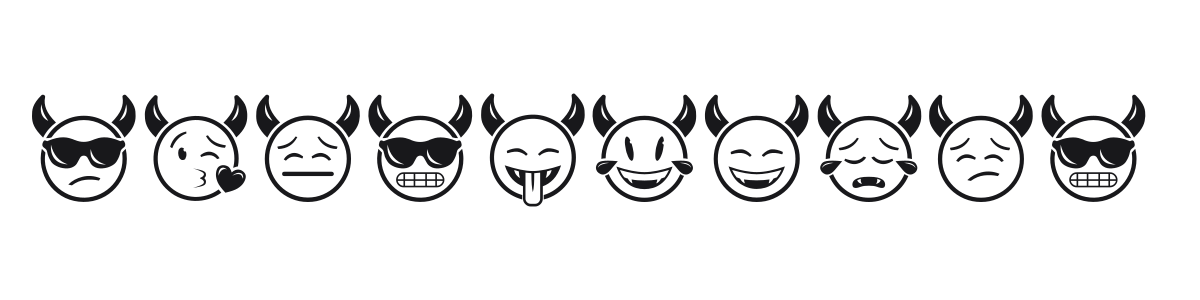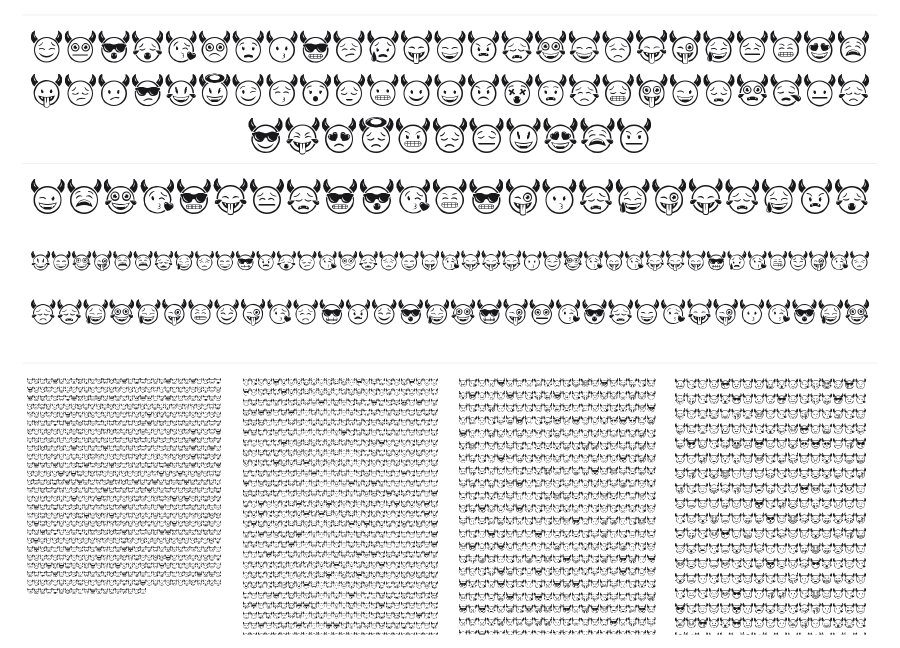
Devil Emoji
Devil Emoji is a dingbat font by Vladimir Nikolic featuring a set of devil-themed emoji faces, each with horns and a distinct expression. The icons share a clean outlined style with consistent stroke weight, drawn in a modern emoji aesthetic. Great for adding themed flair to Halloween projects, gaming assets, or any design that needs a little mischief.